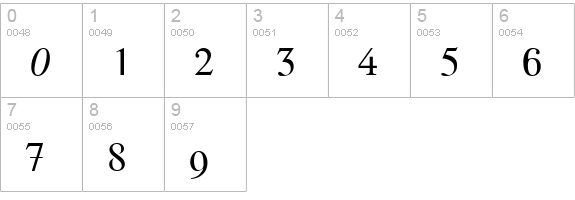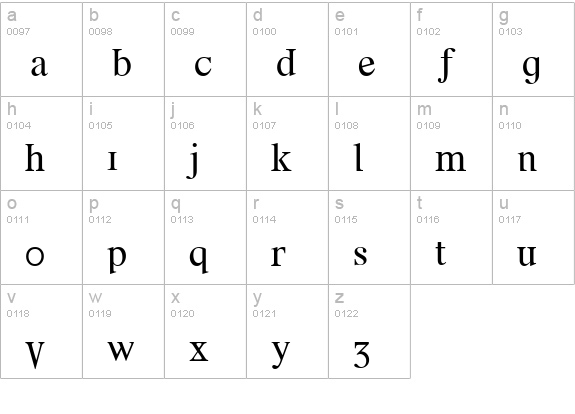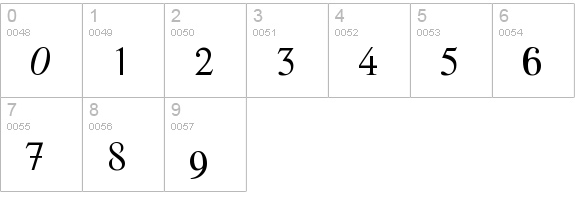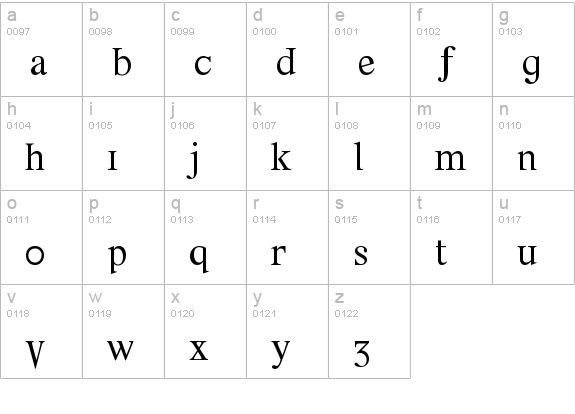
Introducing Font Error font, a bold and eye-catching typeface that is sure to make a statement in your design projects. This unique font features a playful and modern style, perfect for creating attention-grabbing headlines, posters, and branding materials. With its quirky character and distinct personality, Font Error font adds a touch of creativity to any project. The best part? Font Error font is completely free to use and is available for download at FontsMarket.com. Whether you're a designer looking to add a fun twist to your work or just someone who appreciates a good font, Font Error font is a must-have in your collection. Don't miss out on this fantastic opportunity to enhance your designs with this one-of-a-kind typeface. Download Font Error font today and let your creativity shine!